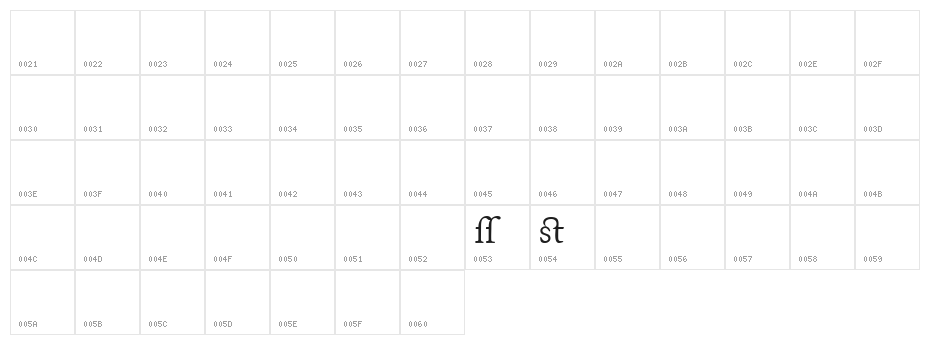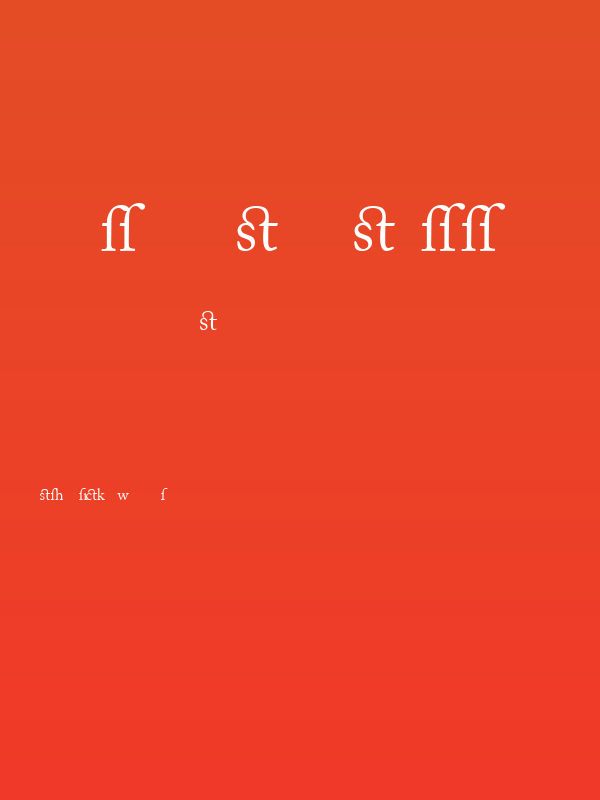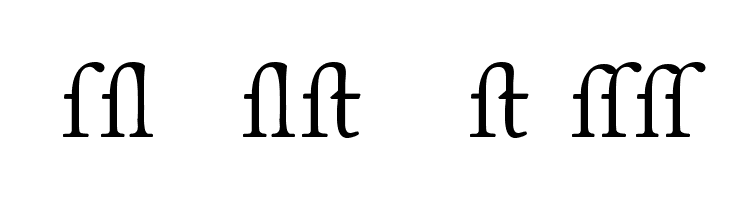
CaslonAlternateSSK Font
CaslonAlternateSSK Description
This font features a collection of ligatures that are elegantly crafted, showcasing a blend of traditional and modern aesthetics. The characters exhibit a classic serif style with a slight flourish, giving them a sophisticated and timeless appearance. The ligatures such as 'ffl', 'ffi', and 'st' are particularly notable for their smooth connections and balanced proportions. The overall design maintains a sense of harmony and readability, making it suitable for both decorative and functional purposes. The font's unique character combinations add a touch of elegance and can enhance the visual appeal of any text.
| Overall Style | Classic |
| Use Case | Headlines, Body text, Logos |
| Proposed Projects | Ideal for use in branding, editorial design, invitations, and any project seeking a touch of elegance and tradition. |